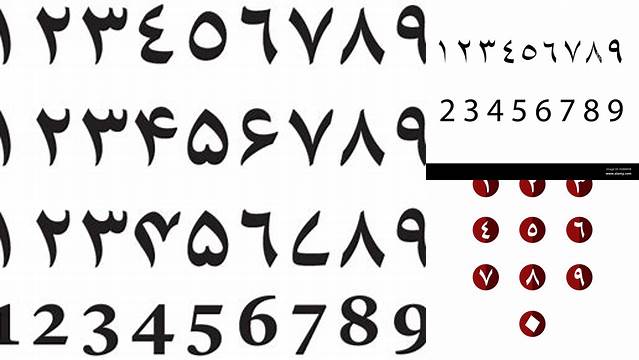
Arabic Number Fonts: A Comprehensive Guide
Arabic number fonts, guys, are super fascinating! They're not just about the numbers; they're about a whole cultural and artistic expression. I'm talking about the different styles, the history, the way they're used β it's all interconnected, you know? So, let's dive in and explore the amazing world of Arabic number fonts! Get ready to learn about the design, the evolution, and how you can incorporate these beautiful fonts into your projects. We'll cover everything from the basics to some more advanced stuff, so whether you're a designer, a student, or just curious, there's something here for you. Let's get started!
Unveiling the Origins and History of Arabic Number Fonts
Alright, let's rewind a bit, shall we? When we talk about Arabic number fonts, we're not just talking about digits. We're talking about a rich history that stretches back centuries! It all starts with the Indian numerals, which were adopted and modified by Arab mathematicians and scholars during the Islamic Golden Age. These brilliant minds, they didn't just take the numbers; they transformed them, giving rise to the forms we recognize today. It's important to note that the numbers we use in the West are also derived from Arabic numerals, which is a pretty cool fact, right? Initially, the Arabic numeral system didn't have a single, unified style. Different regions, like North Africa and the Middle East, developed their own variations. The eastern Arabs, for example, used a different set of glyphs compared to the western Arabs. Over time, these styles evolved, influenced by calligraphy, local art styles, and the needs of the people. This is why you'll find distinct variations in Arabic number fonts. Think of it like dialects β different regions, different styles, but all part of the same beautiful language. This evolution is something to appreciate. Learning about the history helps you understand the depth and beauty of Arabic number fonts. Itβs like understanding the story behind a piece of art β you appreciate it more when you know where it comes from, what the artist was thinking, and the journey it took to become what it is. Knowing that these numbers connect us to such a rich intellectual and artistic heritage, that alone makes it something to be admired. The journey of Arabic number fonts is a true reflection of cultural exchange and adaptation, so next time you see an Arabic numeral, remember the incredible journey it took to get here!
Deciphering the Different Styles of Arabic Number Fonts
Okay, so now you know a little bit about the history of Arabic number fonts, but what about the actual styles? There's a whole spectrum of designs out there, and understanding these differences is key to using them effectively. First, let's look at the two main categories: Eastern Arabic numerals and Western Arabic numerals. Eastern Arabic numerals (also called Hindi numerals in some contexts) are the ones you'll find in languages like Persian and Urdu. They have a distinctive look, with more angular forms and a slightly different arrangement compared to the numbers we use. Western Arabic numerals are the ones we're most familiar with. These are the digits we see in English, Spanish, French, and other Western languages. However, even within these categories, there's a huge range of styles. You have classic, traditional fonts, often inspired by calligraphy, and modern, minimalist designs. There are also fonts that mimic the look of handwriting, offering a more personal touch. Some fonts are designed specifically for readability, while others prioritize aesthetics and artistic flair. The choice depends entirely on the project and the message you want to convey. Do you want a classic, formal look? Go for a traditional font. Need something modern and clean? Try a sans-serif design. The beauty of Arabic number fonts is in their versatility. You can find a style to match almost any design aesthetic. Another thing to keep in mind is the context. The font you choose for a website might be different from the one you use in a print ad. The size of the font, the color, and the surrounding elements all play a role in how the numbers are perceived. So, take your time, experiment, and don't be afraid to mix and match to see what works best! When it comes to fonts, there are so many options. It's like choosing an outfit β you have to pick what best fits the occasion. Understanding different styles is not just about aesthetics, it's about communication. It is about choosing the most appropriate form to tell your stories. You can convey a sense of tradition, modernity, or creativity all in one click.
Exploring the Eastern Arabic Numeral Variants
Let's dive a bit deeper into the world of Eastern Arabic numerals. These digits, prevalent in regions like Iran, Afghanistan, and Pakistan, are often the unsung heroes of typography, you know? The first thing you'll notice is their distinctive appearance. Unlike the familiar shapes of Western numerals, Eastern Arabic numerals have a more angular and geometric design. This aesthetic is rooted in the rich tradition of Islamic calligraphy and the artistic sensibilities of the regions where they're used. The shapes, angles, and strokes of Eastern Arabic numerals often reflect the fluidity and precision of calligraphic scripts. Their unique look immediately sets them apart from the Western style. Think about how they appear. The '0' is a dot, the '1' is a straight line, and the '2' is more like a hook. These subtle differences have a significant impact on the overall visual texture. When you see them, they often feel more dynamic and expressive, giving a sense of tradition and cultural identity. These numerals often have a vertical emphasis, too, with some characters appearing taller than others. This characteristic helps create a rhythm and flow within the text. The variation in thickness of the strokes also adds to the visual interest, providing subtle highlights and shadows. This is a stark contrast to the often more uniform and consistent strokes found in Western numerals. Eastern Arabic numerals bring a certain gravitas to a design, making it more than just a functional element. It's a visual statement, speaking volumes about cultural heritage and artistic pride. If you want to bring in a feel of the region, and a subtle touch of sophistication, this is the way to go.
Discovering Western Arabic Numeral Variations
Alright, now let's zoom in on the Western Arabic numerals, the digits we use every day! As mentioned before, these are the ones you're probably most familiar with, found in English, Spanish, French, and many other languages. But even within the Western style, there's a huge variety of designs to explore. You've got your classic serif fonts, like Times New Roman and Garamond, which have the little